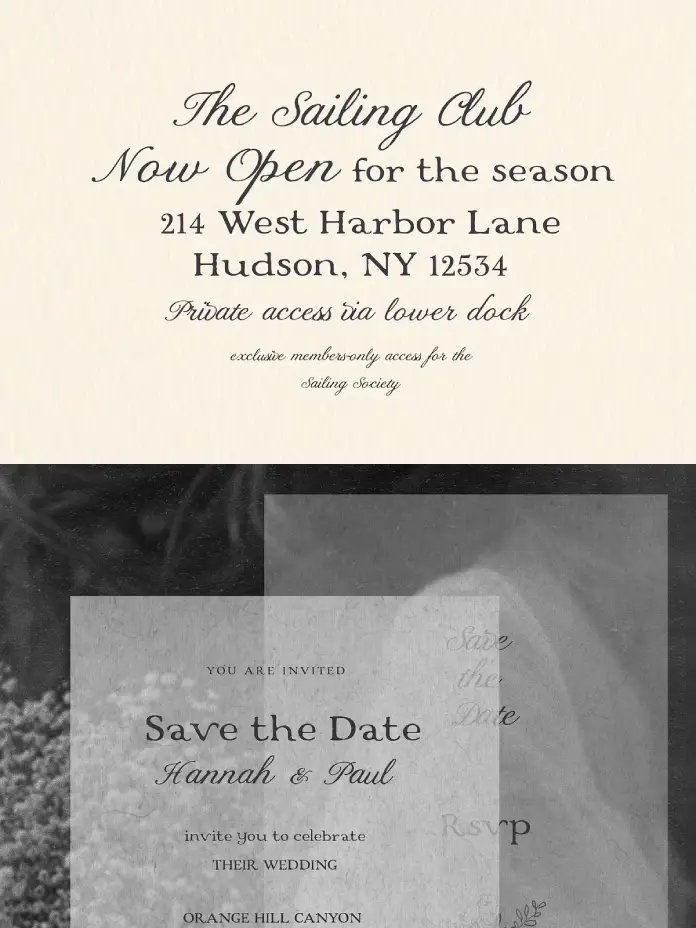
The Boathouse & Sailing Club font duo by Laras Wonderland carries a mood before you read a single word. One glance and you feel the weight of a lacquered hull, the hush of a members-only club, the crispness of embossed stationery. This is typography with provenance — or at least, the convincing illusion of it. And that illusion, when executed well, is everything in branding.
The conversation around heritage typography has grown louder in recent years. Quiet luxury is no longer just a fashion-world concept. It has migrated into packaging, editorial design, wedding aesthetics, and coastal lifestyle branding. Designers are reaching for typefaces that feel earned rather than assembled. The Boathouse & Sailing Club font duo lands squarely in that cultural moment — and it does so with real craft behind it.
What Makes the Boathouse & Sailing Club Font Duo Different from Other Vintage Script Pairings?
The vintage script category is crowded. Frankly, most of it is noise. Dozens of font duos promise nautical charm or heritage warmth and deliver something generic. The Boathouse & Sailing Club pairing avoids that trap through a specific design philosophy: restraint paired with character.
The duo consists of two files. Boathouse.otf is a handwritten serif with a vintage finish — slightly softened at the edges, balanced in proportion, and grounded in structure. SailingClub.otf is an elegant calligraphy script that leans expressive without tipping into excess. Together, they operate on a clear axis: Boathouse anchors, SailingClub moves.
This is what typographers call a tension pairing — two weights of personality held in productive opposition. The serif grounds the composition. The script breathes life into it. Neither competes. Both speak the same visual language: heritage, craft, and quiet confidence.
The Handcrafted Serif: Boathouse.otf
Boathouse reads like something stamped onto a mahogany membership plaque. Its softened edges prevent it from feeling overly rigid. The proportions are balanced — neither condensed enough to feel pressured nor wide enough to feel casual. This is a serif that belongs on aged membership cards, event programs, or bottle labels.
It works at large display sizes as a headline. It also holds composure at mid-sizes for subheadings and short body copy on packaging. The vintage finish — that barely perceptible texture in the letterforms — is where the craft lives. It suggests history without faking it.
The Calligraphy Script: SailingClub.otf
SailingClub.otf is the emotional pulse of this duo. Calligraphy scripts can easily become overwrought, especially in the wedding and lifestyle branding space. This one stays elegant because it knows when to stop. The ink-like strokes have presence, but the letterforms never collapse into illegibility or self-conscious flourish.
Use it for name lines, taglines, and accent phrases. It performs beautifully on wedding invitations, menu cards, and cosmetic packaging. At larger sizes on printed materials, the script reveals a hand-inked quality that photographs genuinely well, which matters for any brand that lives on Instagram or in editorial spreads.
The Quiet Luxury Framework: Why This Duo Fits a Cultural Moment
There is a useful concept worth naming here: Typographic Heritage Signaling — the use of letterforms to communicate institutional age, social belonging, and aesthetic authority without explicit statement. The Boathouse & Sailing Club font duo is a textbook case of this approach.
Consider what quiet luxury branding requires. It needs a type that suggests established taste rather than an aspirational trend, a contrast between a stable structural element and a more personal expressive one, and legibility at multiple scales because luxury packaging operates at close range. This duo checks every criterion.
Coastal heritage branding in particular benefits from typefaces with this profile. Think of the visual language of sailing clubs, yacht registries, premium outerwear brands, and artisanal food producers near the coast. That aesthetic runs on a specific typographic grammar: serif authority, script warmth, controlled imperfection. Boathouse and Sailing Club speak that grammar fluently.
Where Typographic Heritage Signaling Matters Most
Not every brand needs to signal heritage. But for brands operating in the elevated leisure, artisan food and beverage, wellness, and wedding industries, heritage signaling is a core communication tool. Consumers in these markets make decisions based on atmosphere and cultural alignment as much as product attributes.
A whiskey label using Boathouse and SailingClub reads differently from one using a generic serif. A wedding invitation set in these two fonts arrives carrying an atmosphere. A coastal hotel’s printed collateral feels curated rather than templated. The font does part of the brand’s narrative work before a word is read.